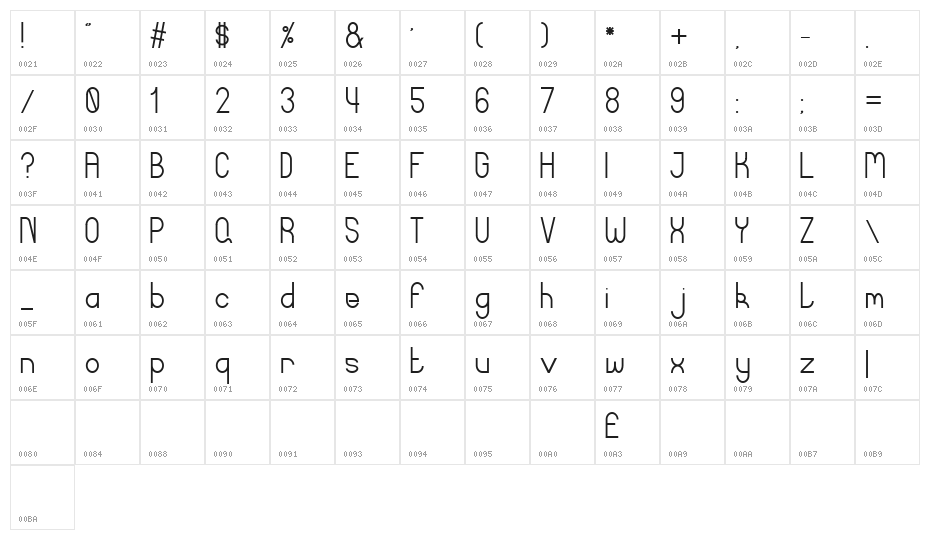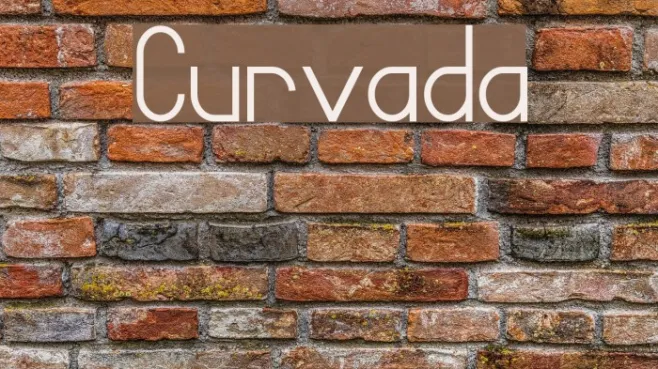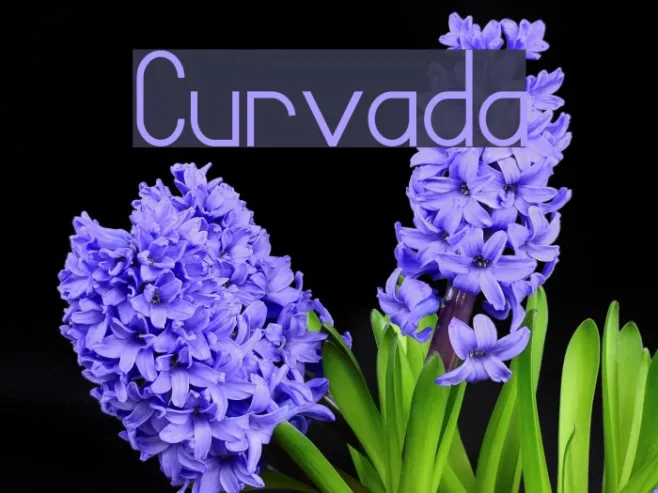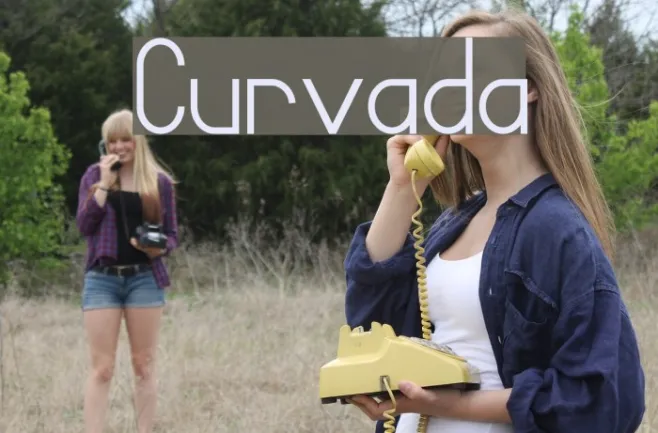
Curvada Font
Curvada Description
This font features a unique blend of geometric and modern design elements, characterized by its clean lines and rounded edges. The uppercase letters exhibit a tall and narrow structure, while the lowercase letters maintain a consistent height with a slightly more open form. The numerals are distinct and easily readable, following the same geometric style. Special characters are designed to complement the overall aesthetic, ensuring a cohesive look across all text. This font's design is both contemporary and versatile, making it suitable for a variety of applications.
| Use Case | Headlines, Logos, Digital Media |
| Proposed Projects | Ideal for branding, advertising, and digital media projects that require a modern and clean aesthetic. |